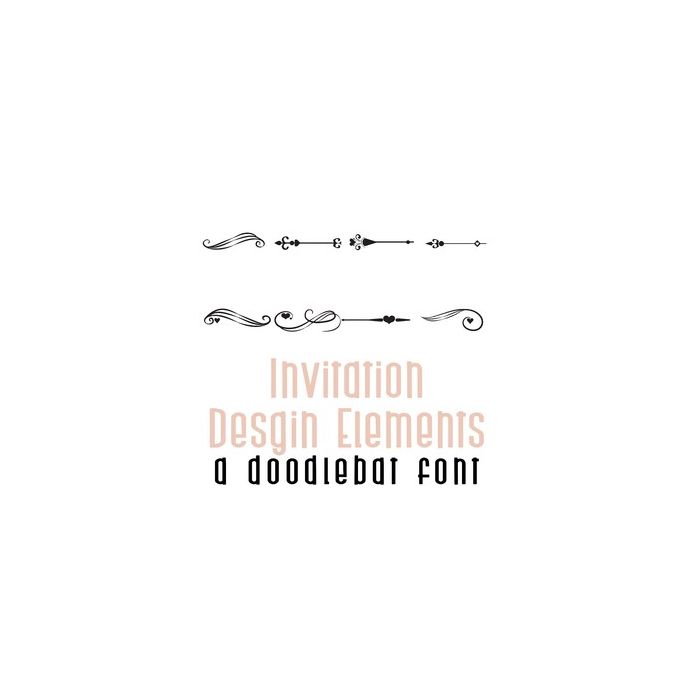
This fun doodlebat font features 52 design elements perfect for creating invitations and more. Perfect for cards, crafts, gifts, decor, scrapbook pages, planner stickers, and more!
The uppercase and lowercases of this dingbat font has the same elements but in reverse, and with no sidebearing space so you can easily type the uppercase and lowercase together to create a continuous design element. So type "Dd" to get the continuous design element line like seen in the example.